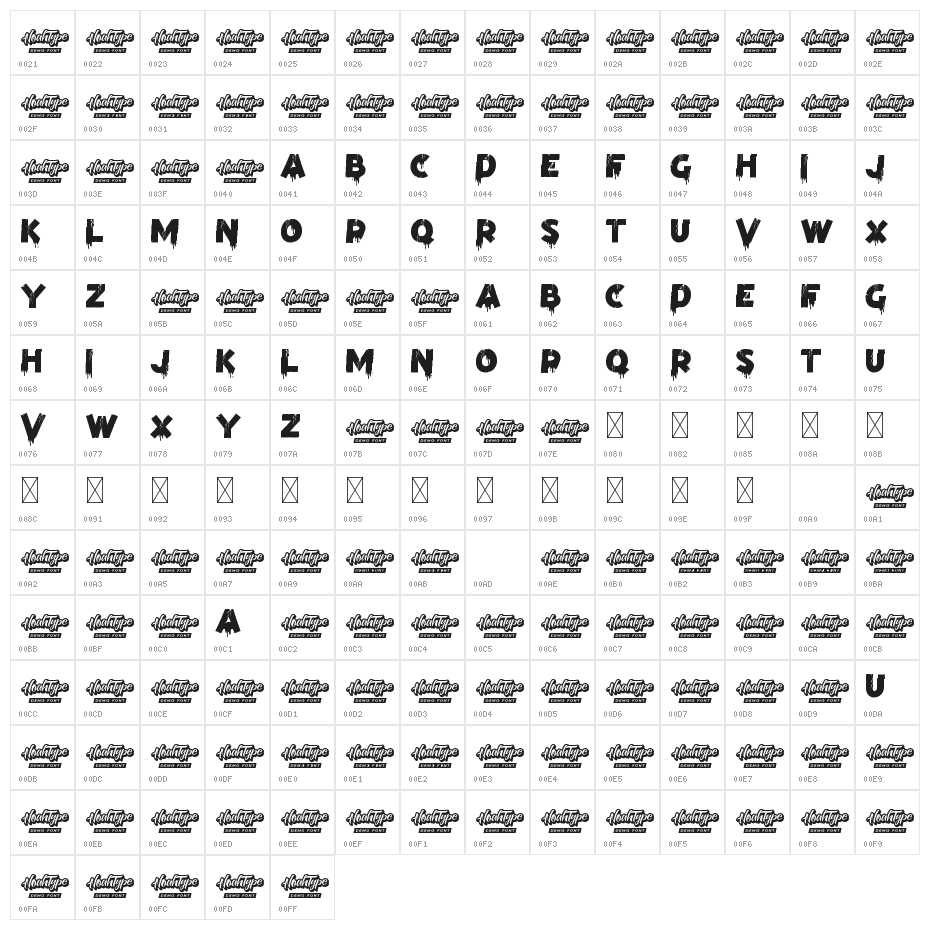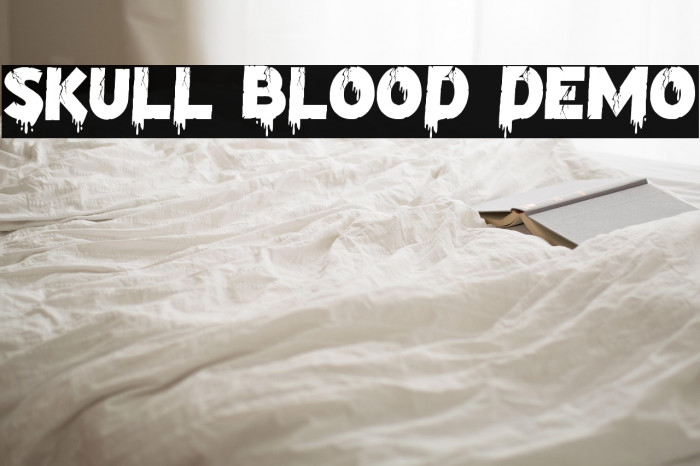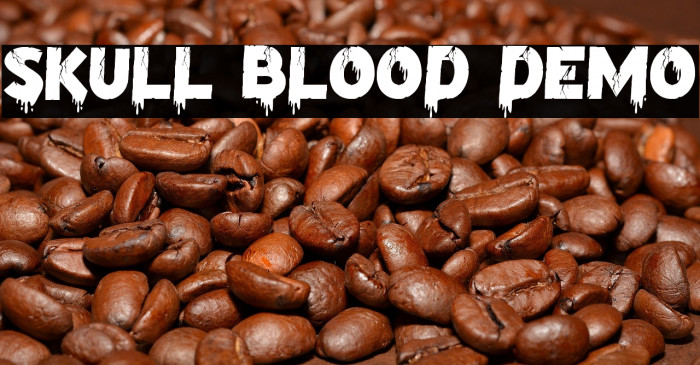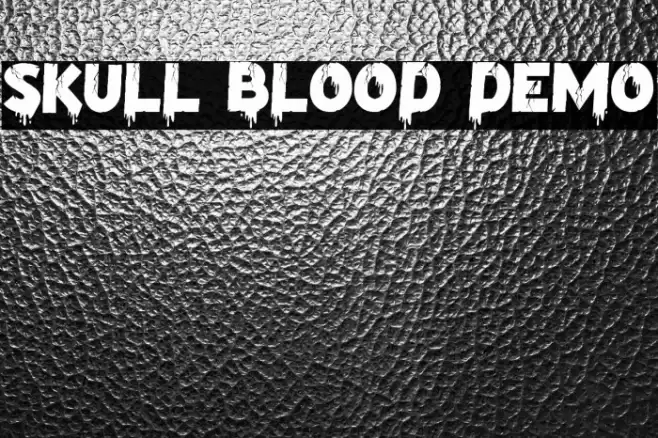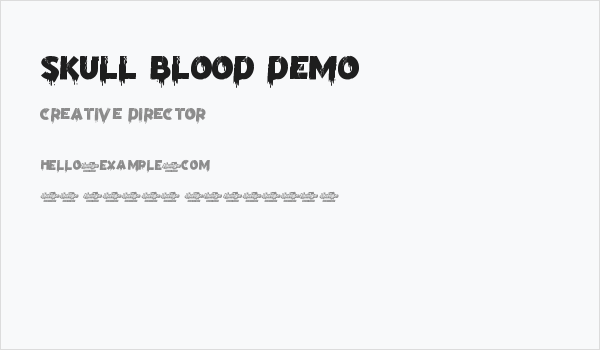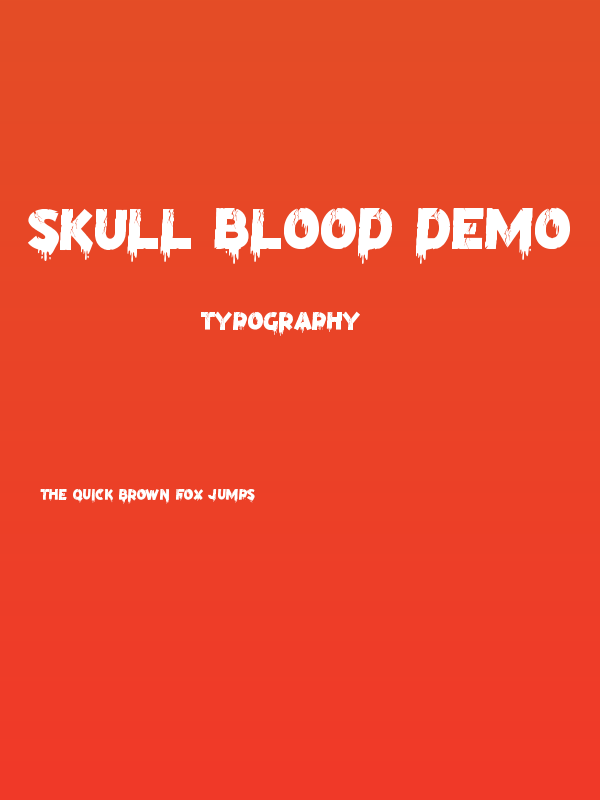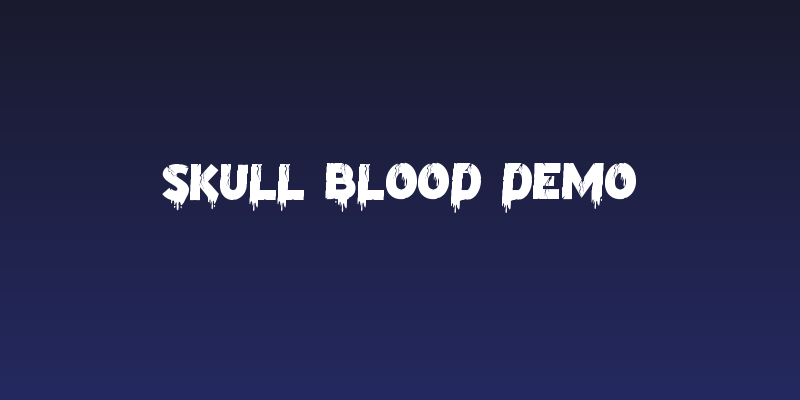
Skull Blood Demo Font
Skull Blood Demo Description
This font features a bold, dramatic style with a dripping effect that resembles blood or paint. The uppercase letters are designed with sharp, angular edges and a distressed texture, giving it a horror or gothic aesthetic. The characters have a consistent width and height, maintaining a uniform appearance across the alphabet. The dripping effect adds a unique, eye-catching element that enhances its decorative appeal. This font is ideal for creating a spooky or eerie atmosphere, making it perfect for Halloween-themed projects or horror movie posters. Its striking design ensures it stands out in any visual composition.
| Overall Style | Gothic, Horror, Decorative |
| Use Case | Headlines, Posters, Logos |
| Proposed Projects | Ideal for Halloween designs, horror movie posters, themed event invitations, and spooky merchandise. |